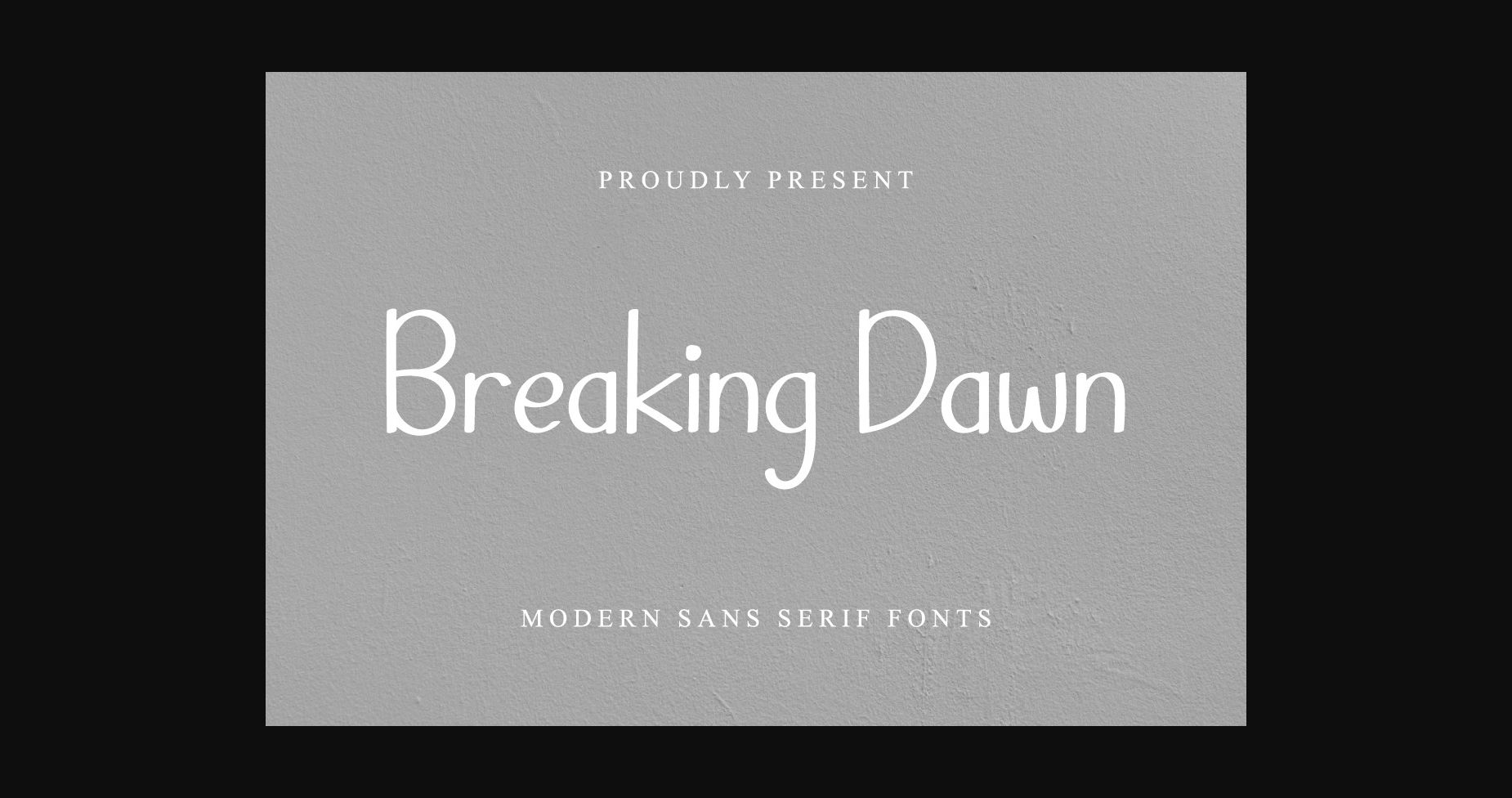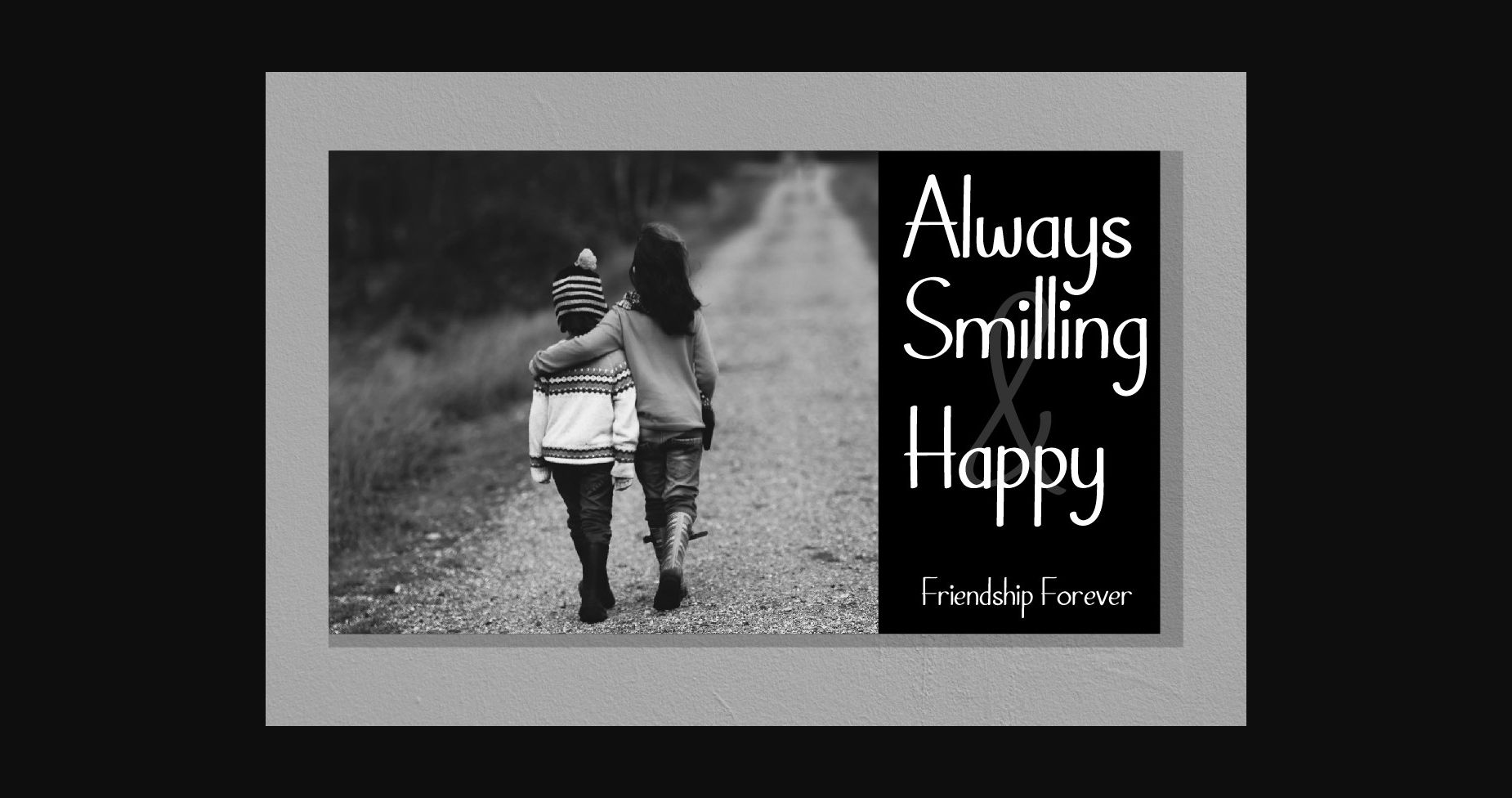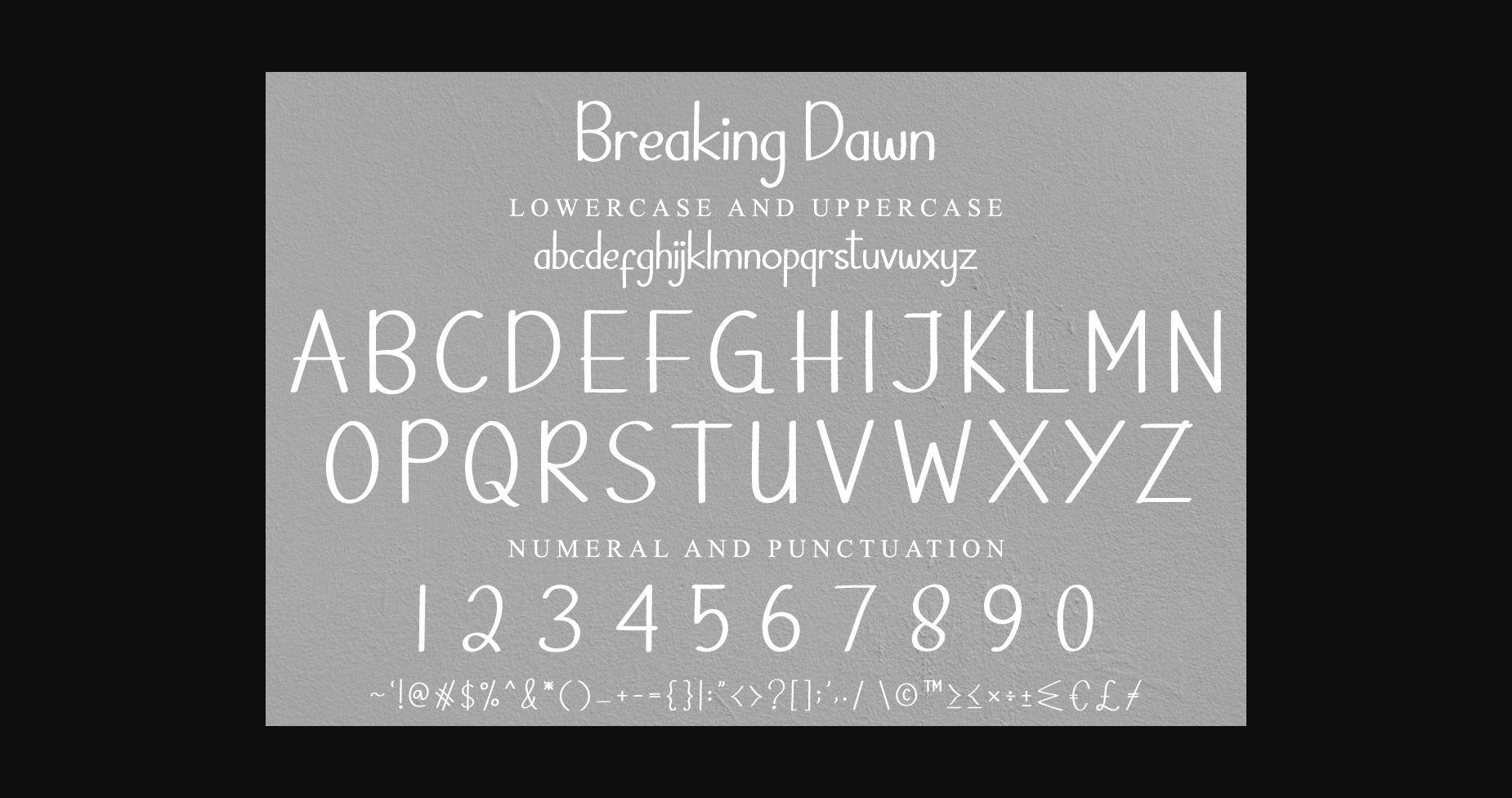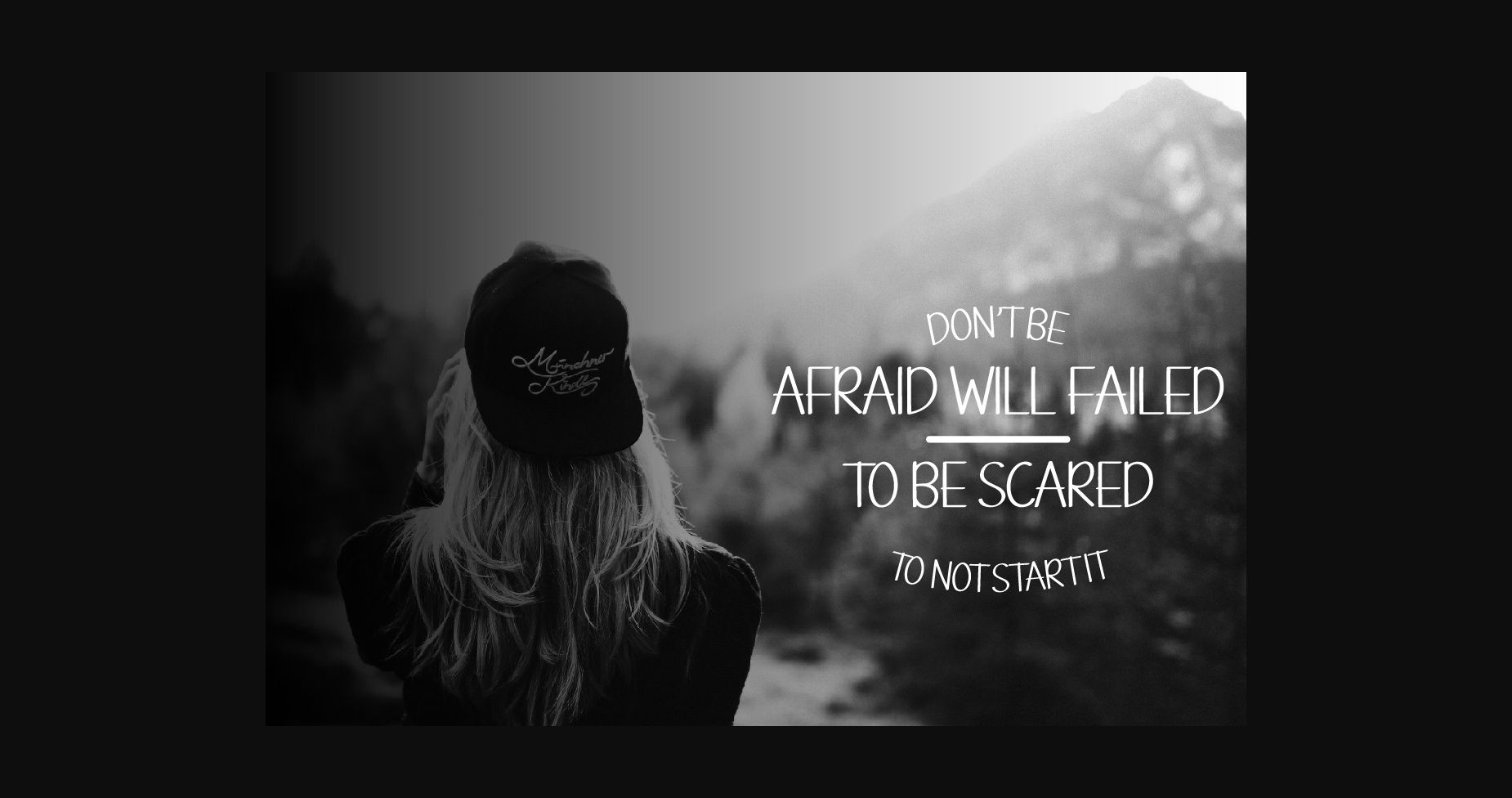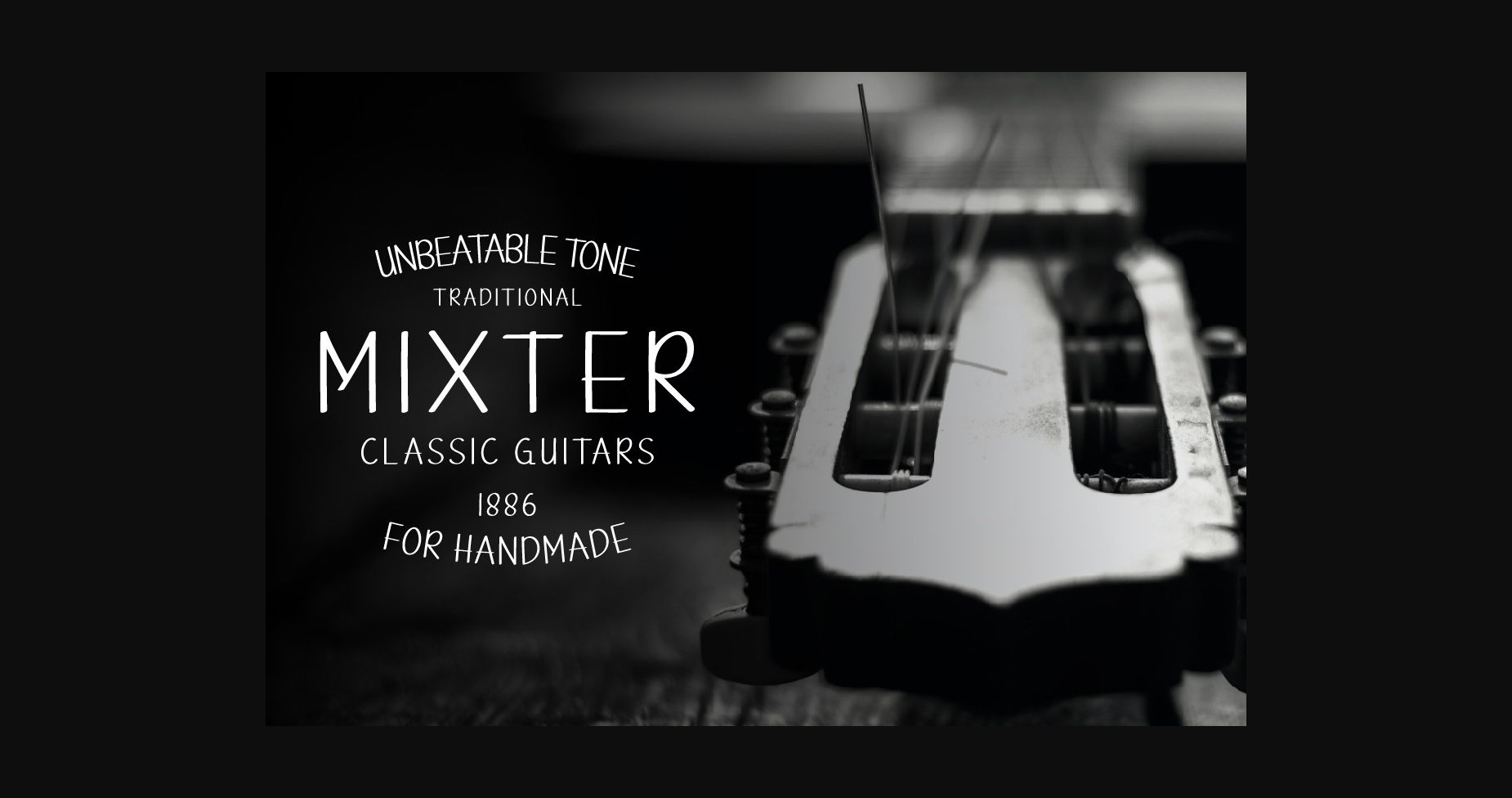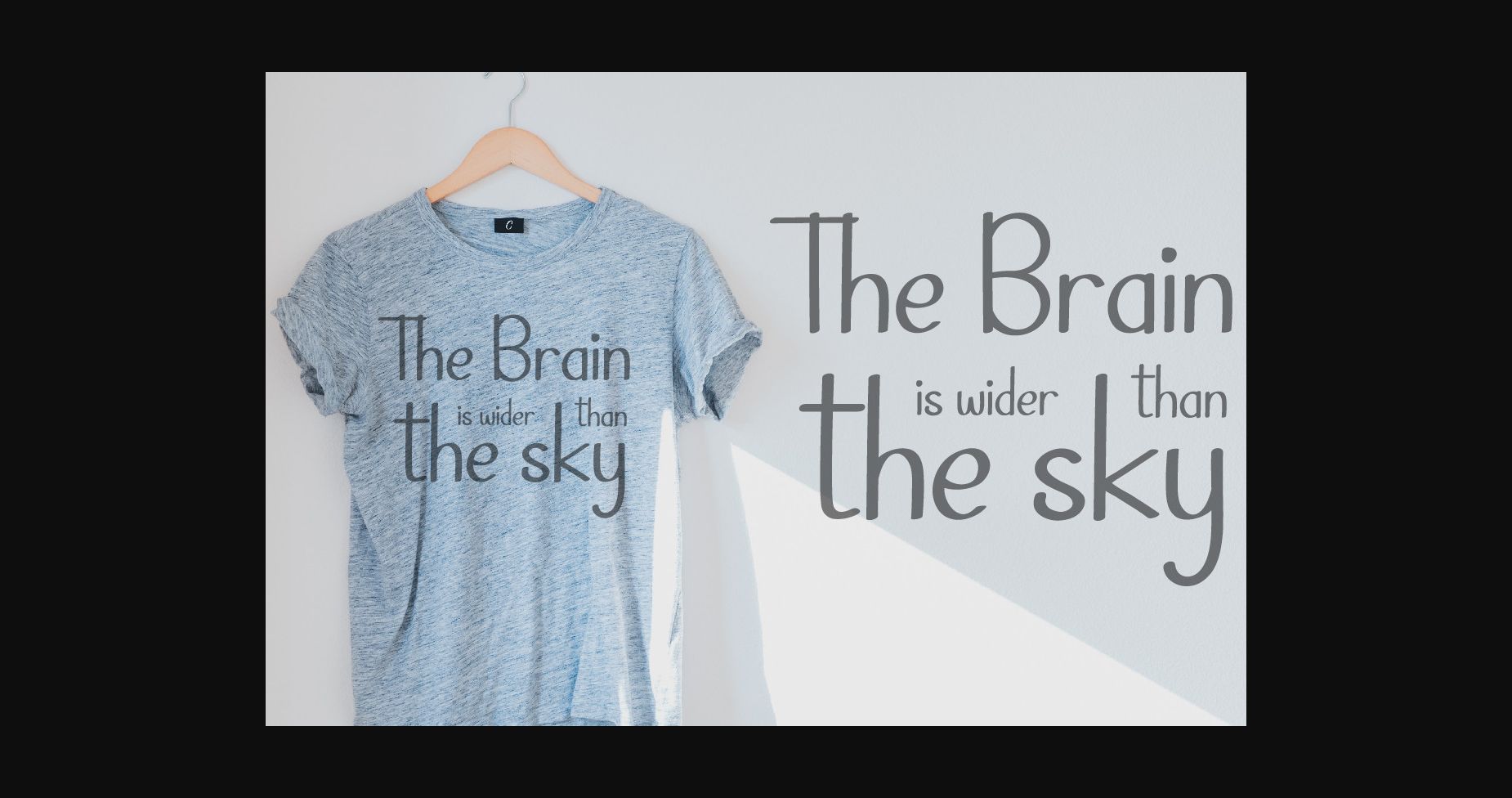
Breaking Dawn Font
About Breaking Dawn Font
Breaking Dawn is a minimal and neat sans serif font. It can easily be matched to an incredibly large set of projects, so add it to your creative ideas and notice how it makes them stand out!